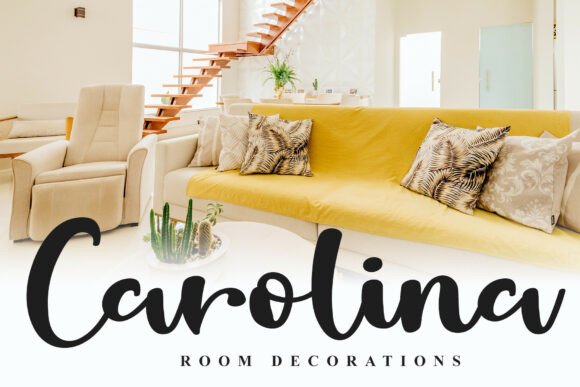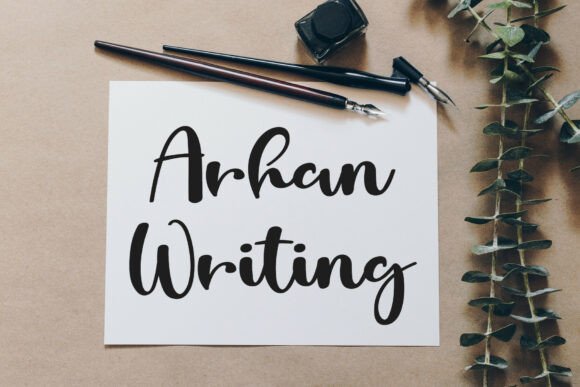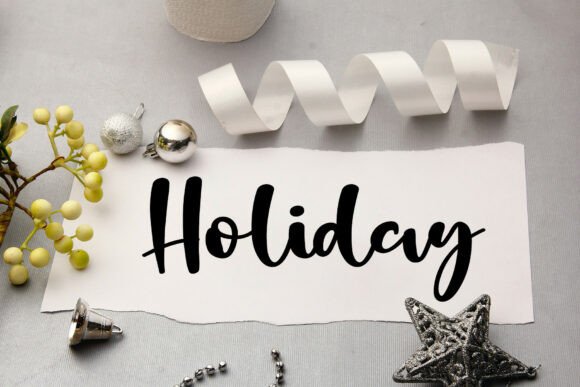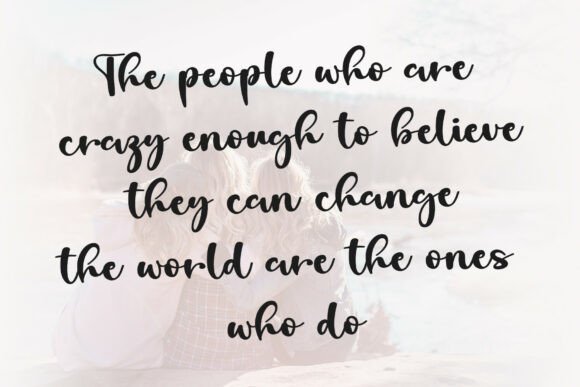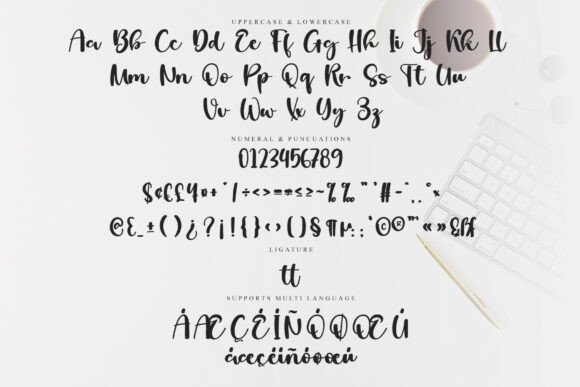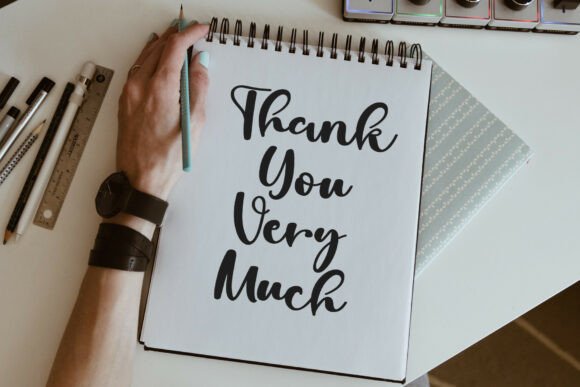
The Perfect Blend of Handwritten Elegance and Modern Flair
As designers, we’ve all been there – staring at a blank canvas, struggling to find the perfect font to convey the essence of our brand. It’s that moment of pure creativity when everything clicks into place, and the perfect font emerges. For me, it was the Biscuit Signature Font that stole the show. With its bold, fluid strokes and dynamic script style, this font exudes strength, elegance, and charisma, making it the ultimate go-to for designers seeking to make a statement.
Whether you’re looking to create a striking logo, a stylish headline, or an eye-catching branding element, the Biscuit Signature Font delivers with confidence and flair. Its unique blend of handwritten calligraphy and modern assertiveness makes it a valuable asset for any designer looking to add a touch of sophistication and personality to their work.
Biscuit Signature Font Key Features
- Font Family: Biscuit Signature Font is a unique, hand-drawn font designed to add a personal touch to digital and print materials.
- Unique Characteristics: Biscuit Signature Font features a distinctive, hand-drawn style with subtle imperfections, giving it a personal and authentic feel.
Biscuit Signature Font Review
Overall, I’m quite impressed with the “Biscuit Signature Font”! It’s a beautiful, elegant script font that’s perfect for adding a touch of warmth and personality to your designs. Here are some of the things that work well:
- ✨ Unique and stylish design: The font has a distinctive, handwritten feel that’s hard to find in other fonts.
- ✨ Versatile: The font works well in a variety of contexts, from branding and packaging to invitations and wedding stationery.
- ✨ High-quality: The font is well-designed and well-executed, with clear, crisp lines and a smooth texture.
- ⚠️ Limited font sizes: While the font looks great at larger sizes, it can become a bit blurry and hard to read at smaller sizes.
- ⚠️ Limited language support: The font is designed primarily for English, so it may not work well with other languages.
- ⚠️ Not ideal for body text: While the font is great for headings and titles, it’s not the best choice for body text, as it can be a bit difficult to read.
Overall, I think the “Biscuit Signature Font” is a great choice for designers looking to add a touch of elegance and sophistication to their work. While it may have some limitations, its unique design and high-quality execution make it a valuable addition to any design library.
Getting the Most Out of the Biscuit Signature Font
Use the Biscuit Signature Font to add a touch of elegance and sophistication to your designs. Experiment with different font sizes and styles to create visual interest.